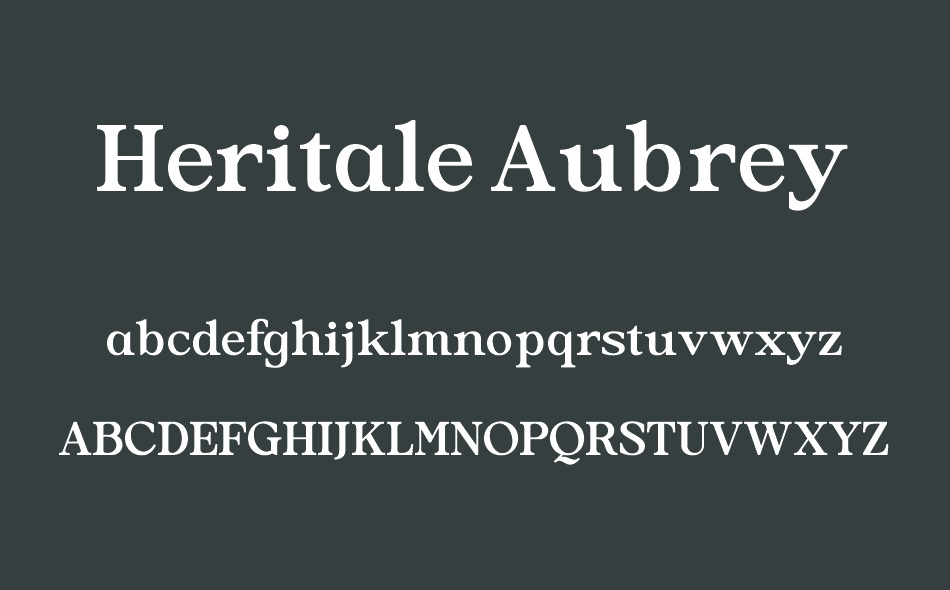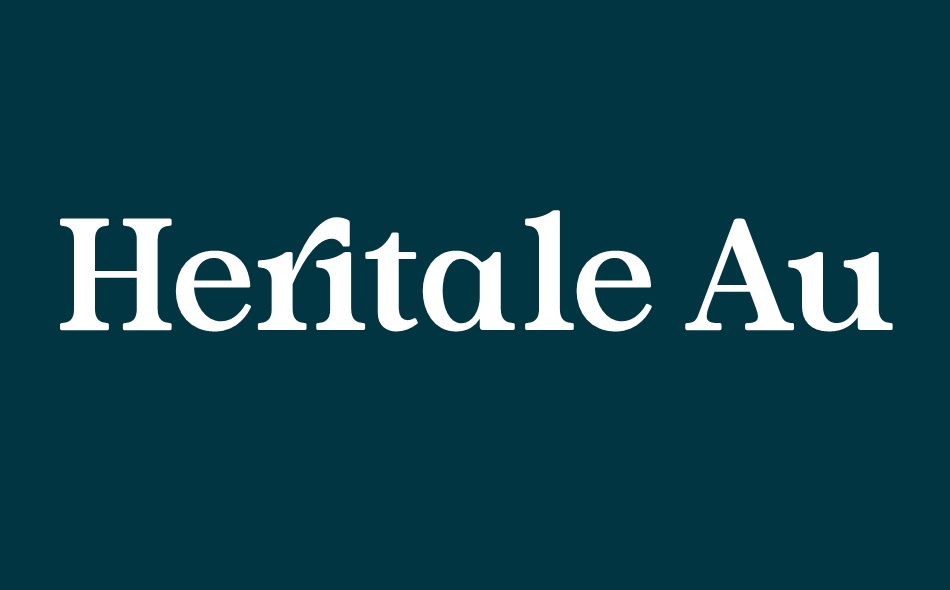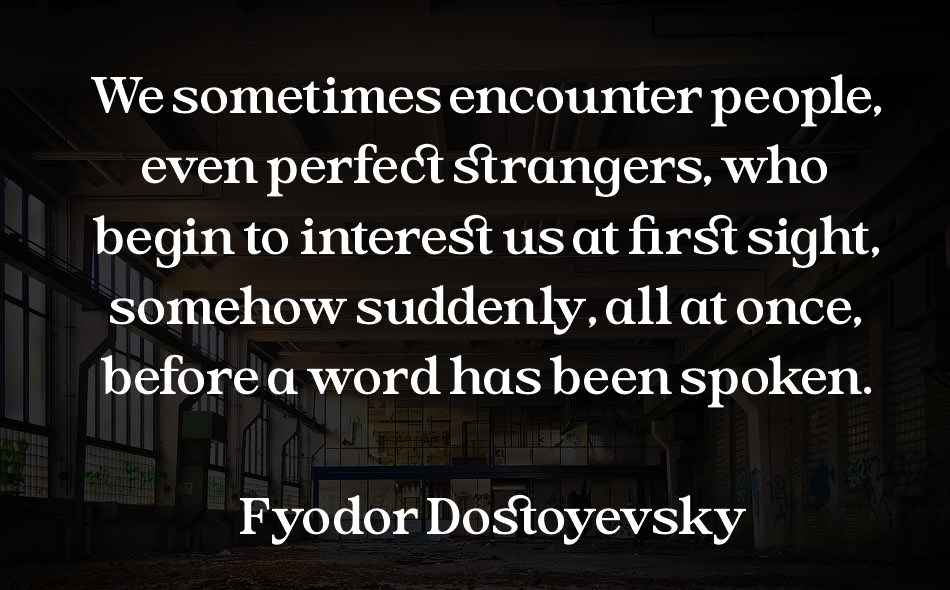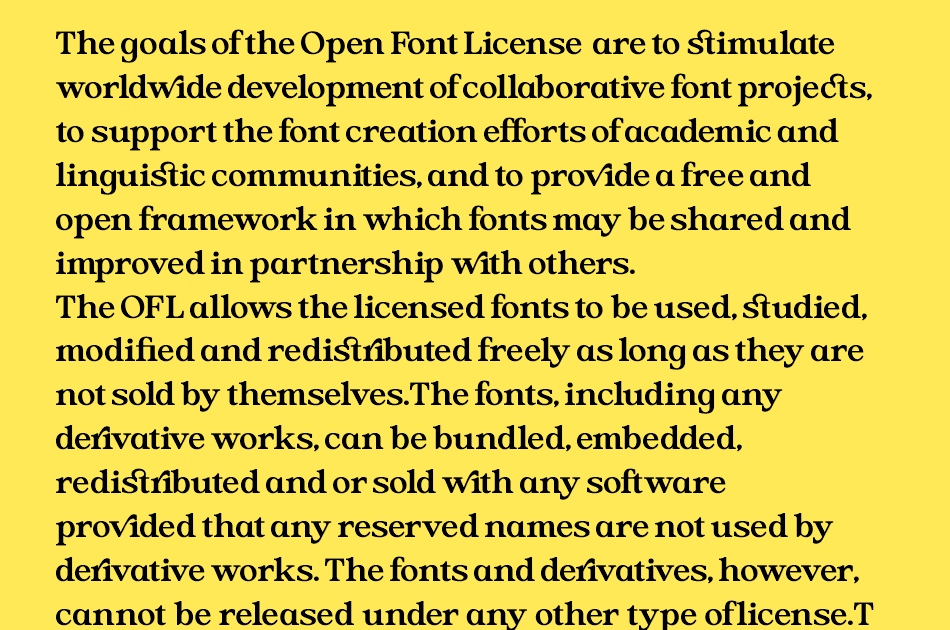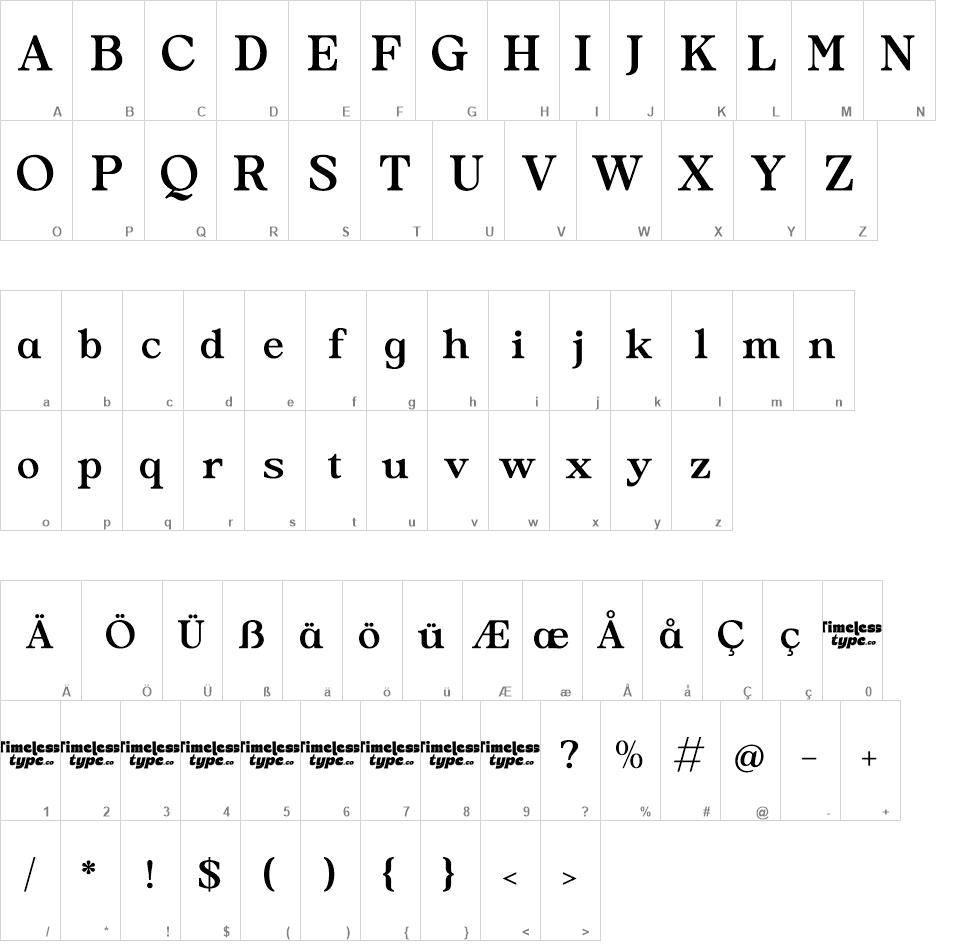
Heritale Aubrey font
Heritale Aubrey - Bold Serif Display
Unleash a wave of nostalgic elegance with Heritale Aubrey, a bold serif display font that commands attention. Inspired by classic editorial lettering and vintage craftsmanship, its every character is infused with a warm, unforgettable personality. The dramatic, high-contrast strokes and sweeping, expressive curves create a rhythm that is both sophisticated and inviting, giving your designs a vintage soul with a modern pulse that feels both familiar and refreshingly new.
Dive into a playground of typographic possibility. Heritale Aubrey is engineered for complete creative control, packed with 51 stunning stylistic alternates and 25 artful ligatures that allow you to fine-tune every detail. These powerful OpenType features make it easy to craft truly bespoke logotypes and headlines, transforming standard text into a unique piece of art. With a total of 407 glyphs, you have the tools for endless customization and expression at your fingertips.
Designed for the modern creative, Heritale Aubrey offers extensive multilingual support to ensure your message resonates across borders. This isn't just a font; it's a global communication tool engineered for flawless performance across different languages and alphabets. Whether you're designing for a local boutique or launching international campaigns, you can confidently speak to a global audience with clarity, character, and unparalleled style.
Heritale Aubrey is the secret weapon for forward-thinking brands and discerning designers. It excels in applications that demand a touch of class, from luxury packaging and sophisticated branding to captivating editorial headlines and high-impact posters. Perfect for fashion, beauty, lifestyle branding, or any project that needs to make an unforgettable statement, Heritale Aubrey ensures your work stands out with timeless grace and confidence.